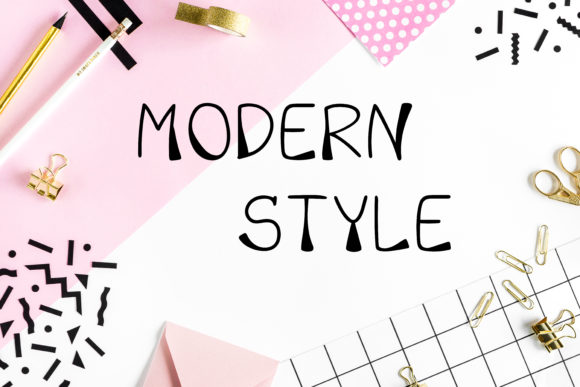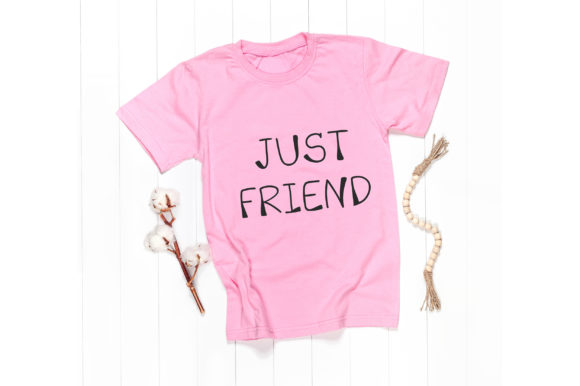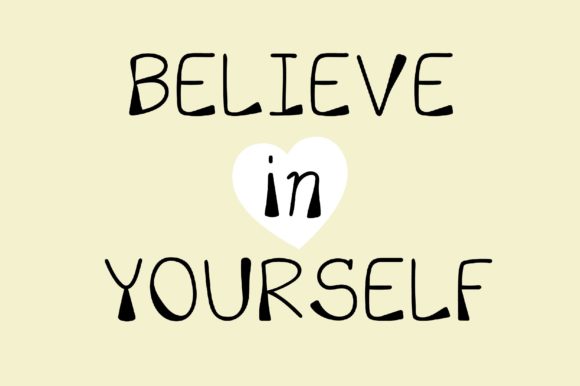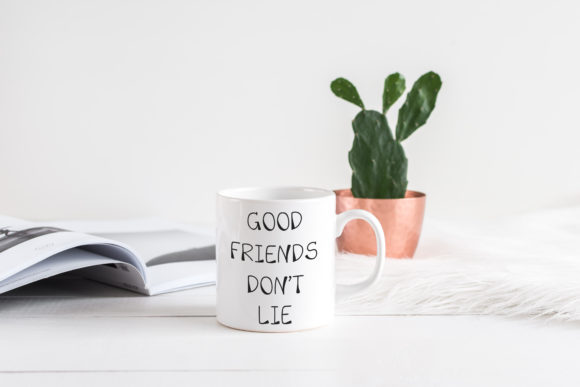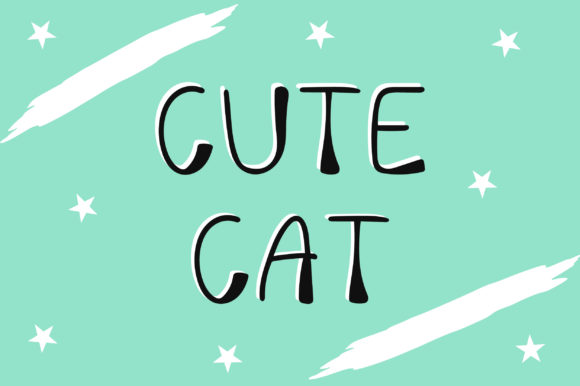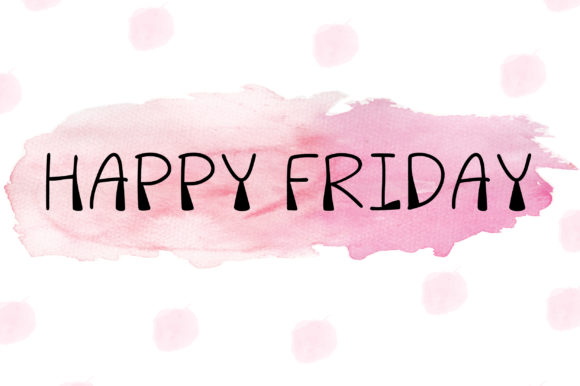
Introducing Good Friend Font: The Perfect Companion for Your DIY Projects
Are you a designer, crafter, or DIY enthusiast looking for a font that can add a personal touch to your projects? Look no further than Good Friend Font, a relaxed and cheerful handwritten font that’s sure to bring a smile to your face. In this article, we’ll dive into the world of Good Friend Font and explore how this gorgeous and unique font can elevate your creative endeavors.
What is Good Friend Font?
Good Friend Font is a beautiful, handwritten font that’s designed to evoke a sense of warmth and friendliness. With its relaxed and cheerful vibe, this font is perfect for anyone looking to add a personal touch to their DIY projects. Whether you’re creating handmade cards, crafting signs, or designing social media graphics, Good Friend Font is the perfect companion to help you bring your ideas to life.
Characteristics of Good Friend Font
So, what makes Good Friend Font so special? Here are just a few of its key characteristics:
- Handwritten style: Good Friend Font is a genuine handwritten font, with each letter and word carefully crafted to resemble the imperfections and uniqueness of handwritten text.
- Relaxed and cheerful vibe: This font exudes a sense of warmth and approachability, making it perfect for projects that require a friendly and inviting tone.
- Unique and distinctive: Good Friend Font is a one-of-a-kind font that’s sure to stand out from the crowd. Its distinctive style ensures that your projects will be instantly recognizable and memorable.
Uses for Good Friend Font
Good Friend Font is an incredibly versatile font that can be used in a wide range of DIY projects, including:
- Handmade cards and invitations: Add a personal touch to your greeting cards and invitations with Good Friend Font’s cheerful and handwritten style.
- Crafting signs and posters: Use Good Friend Font to create eye-catching signs and posters for your business, event, or personal project.
- Social media graphics: Bring your social media graphics to life with Good Friend Font’s unique and engaging style.
- Journaling and scrapbooking: Add a personal touch to your journal or scrapbook with Good Friend Font’s beautiful handwritten style.
Why Choose Good Friend Font?
So, why should you choose Good Friend Font for your DIY projects? Here are just a few reasons:
- Easy to read: Good Friend Font is incredibly easy to read, making it perfect for projects that require clear and concise communication.
- Highly versatile: This font can be used in a wide range of projects, from handmade cards to social media graphics.
- Unique and memorable: Good Friend Font is a one-of-a-kind font that’s sure to make your projects stand out from the crowd.
| Font Name | Good Friend Font |
| Author | PearlyDaisy |
In conclusion, Good Friend Font is a beautiful, handwritten font that’s perfect for designers, crafters, and DIY enthusiasts. With its relaxed and cheerful vibe, unique and distinctive style, and high level of versatility, this font is sure to bring a personal touch to your projects. So why not give Good Friend Font a try today, and see how it can help you bring your creative endeavors to life?